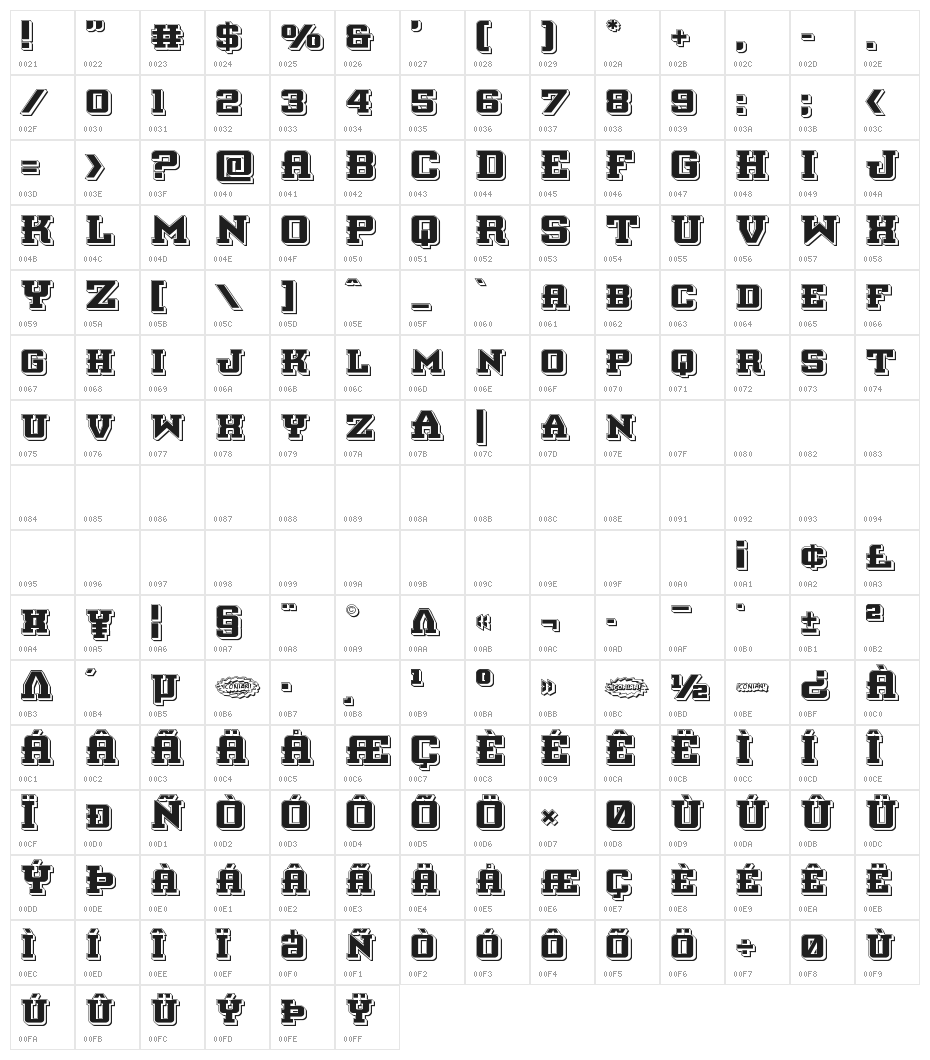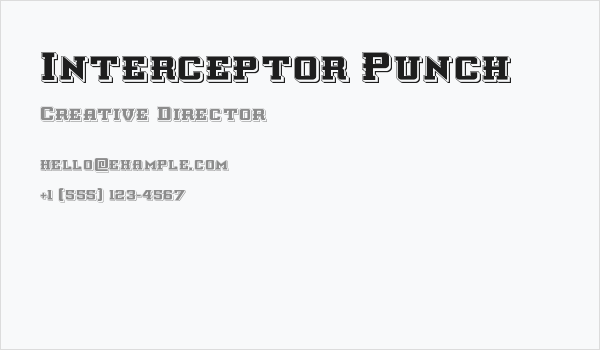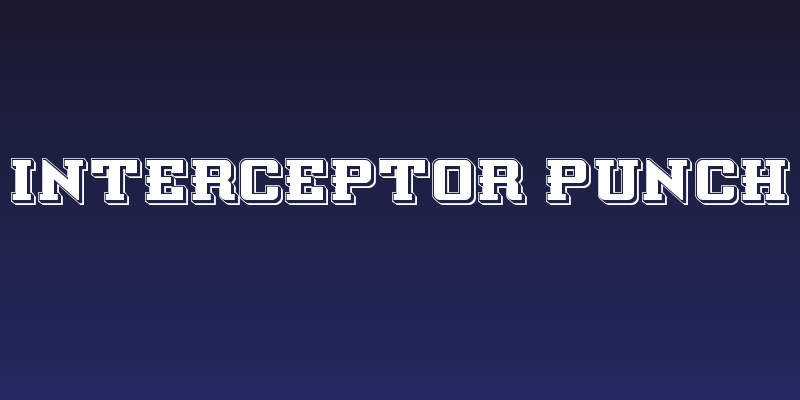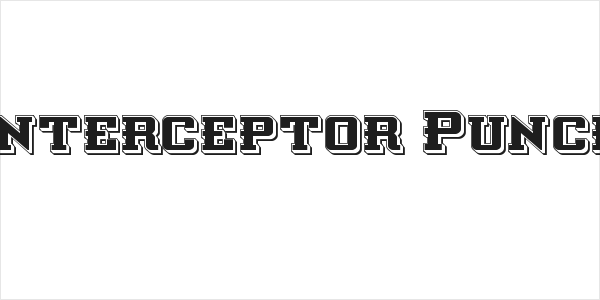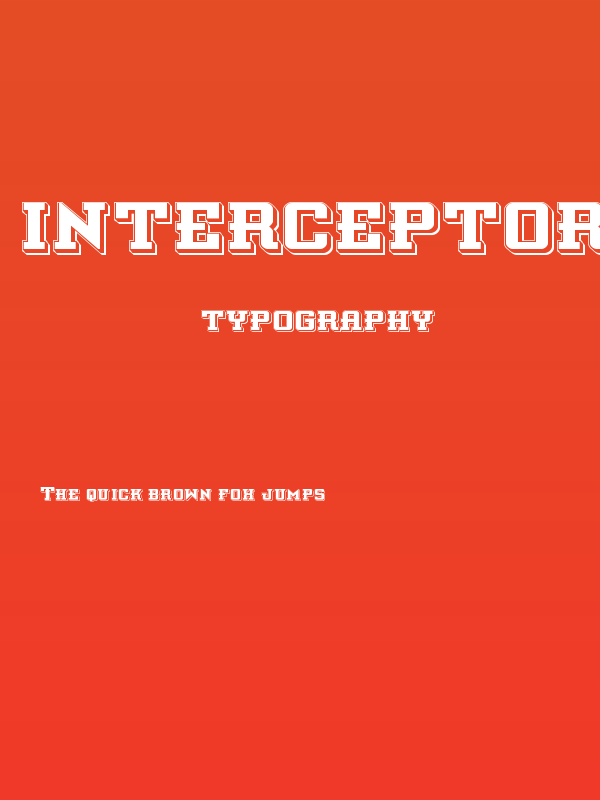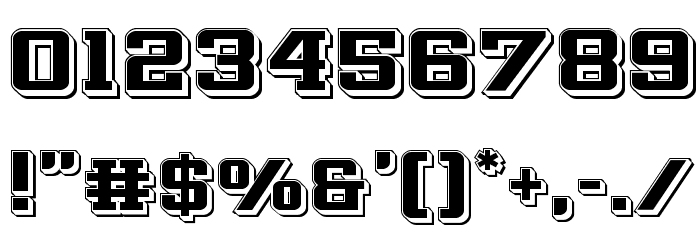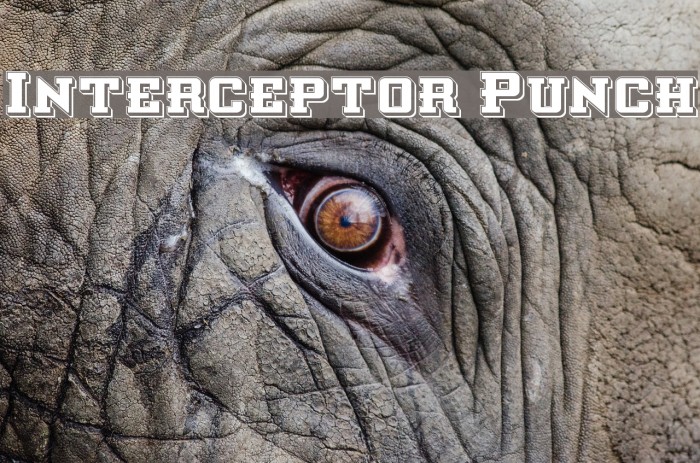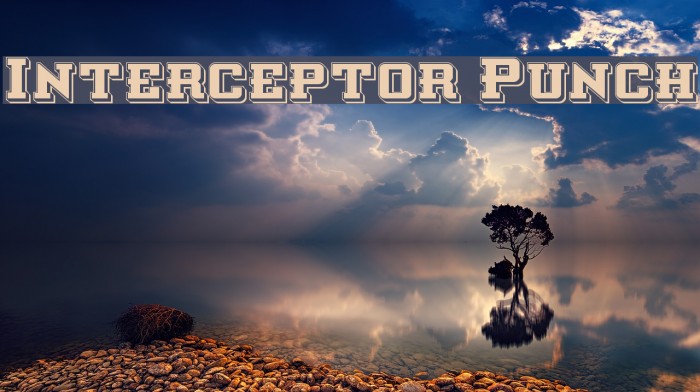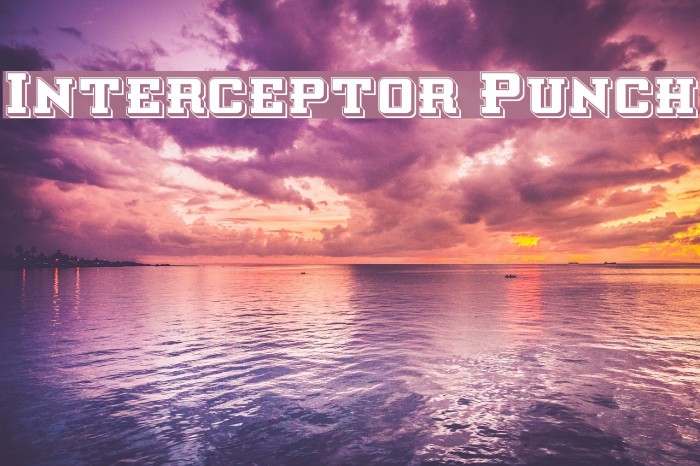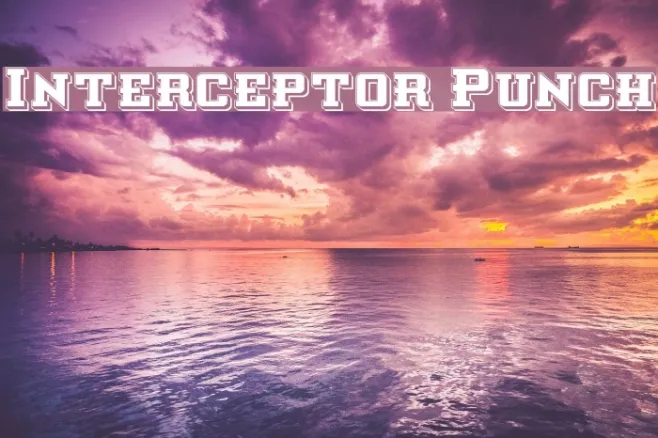
Interceptor Punch Font
Interceptor Punch Description
This bold and striking font features a strong, geometric design with a three-dimensional effect. The characters are outlined with a thick black border, giving them a shadowed appearance that enhances their depth. The letterforms are blocky and angular, with sharp edges and a uniform stroke width that conveys a sense of strength and stability. The font's uppercase and lowercase letters maintain a consistent style, while the numerals and special characters are crafted to match the bold aesthetic. This font is ideal for making a powerful statement in any design project.
| Proposed Projects | Ideal for sports branding, posters, headlines, and any project requiring a strong, impactful typeface. |